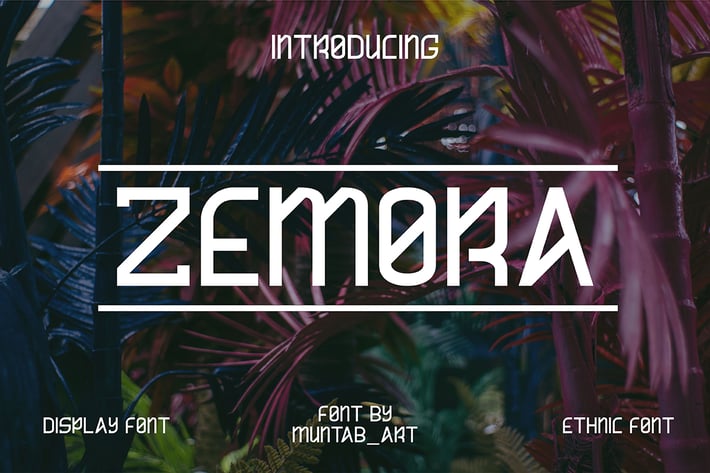
Zemora | Modern Font
Zemora fonts includes uppercase letters, numerals, a large range of punctuation. sans serif font with modern style. Created for poster, web design, branding, illustrations, badges and some other works.